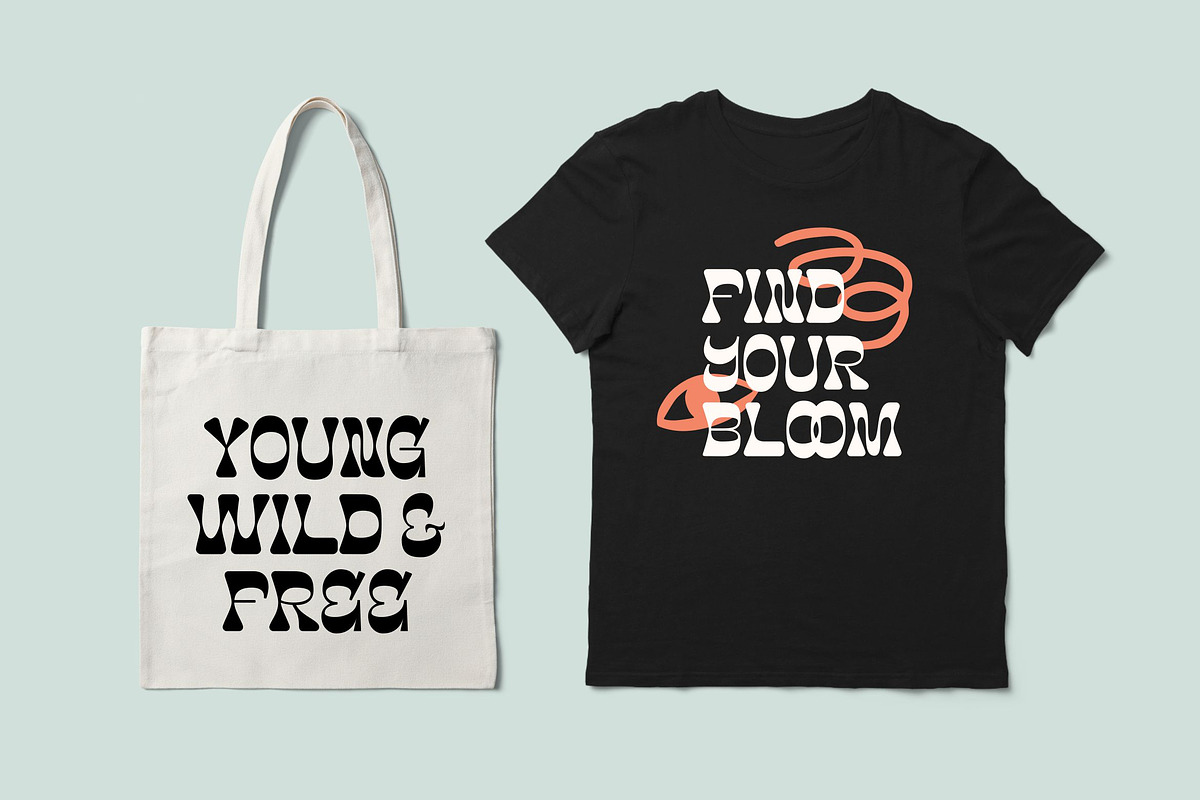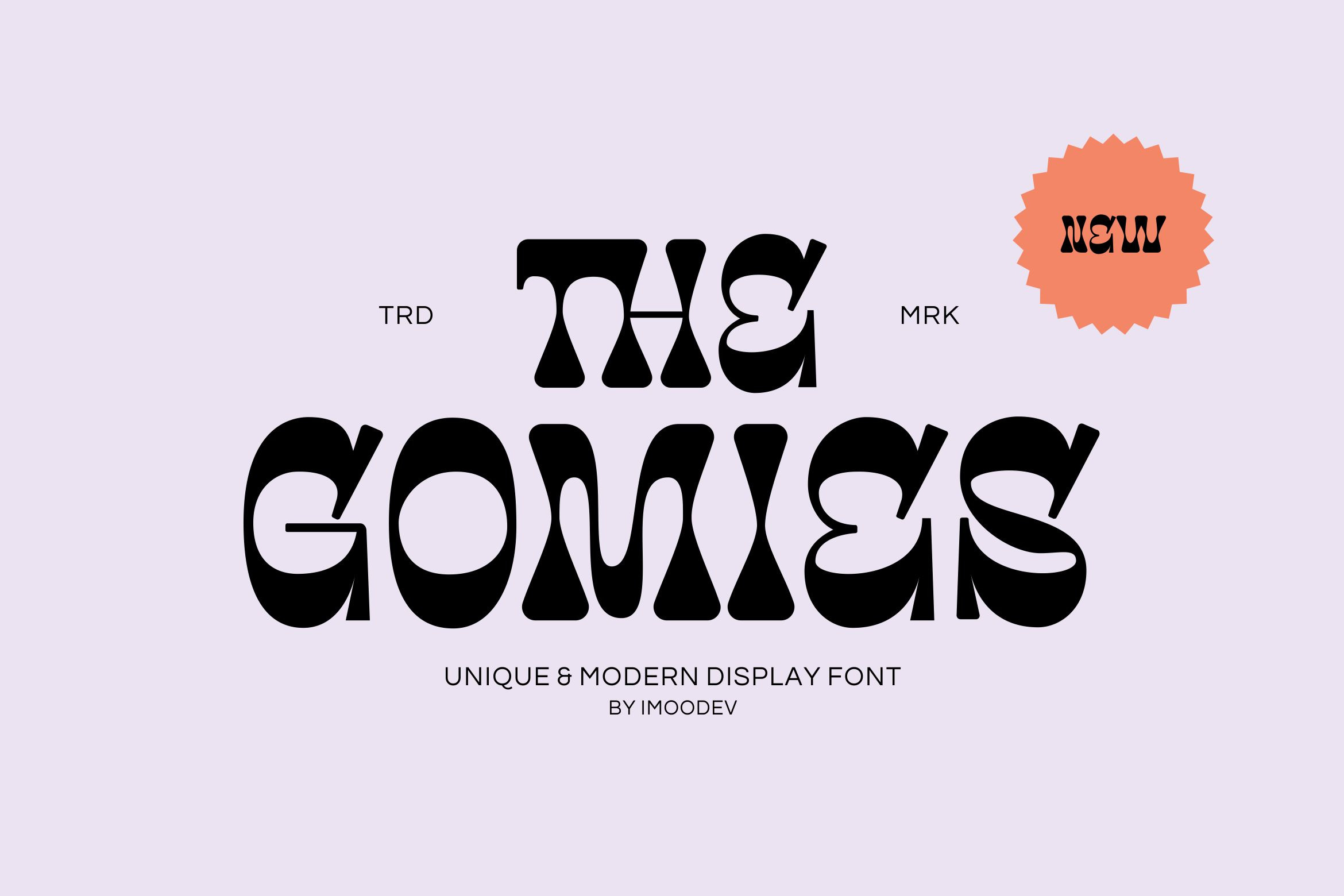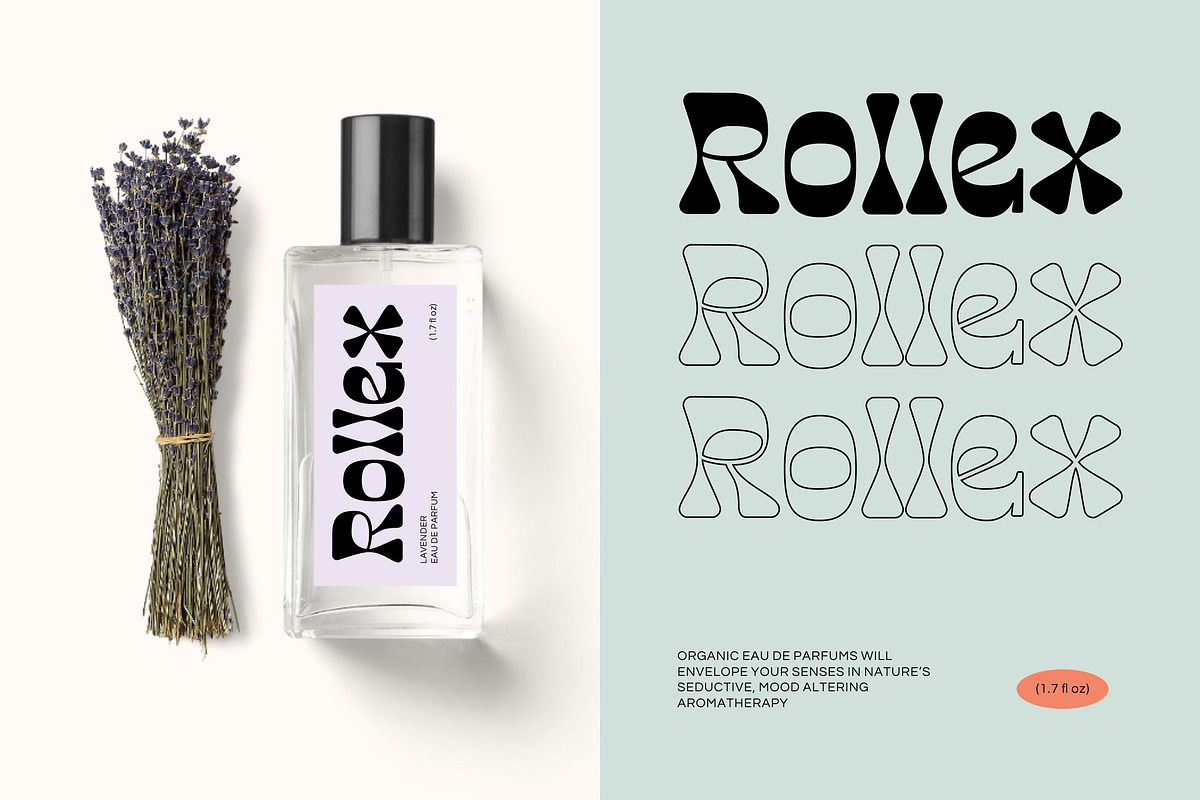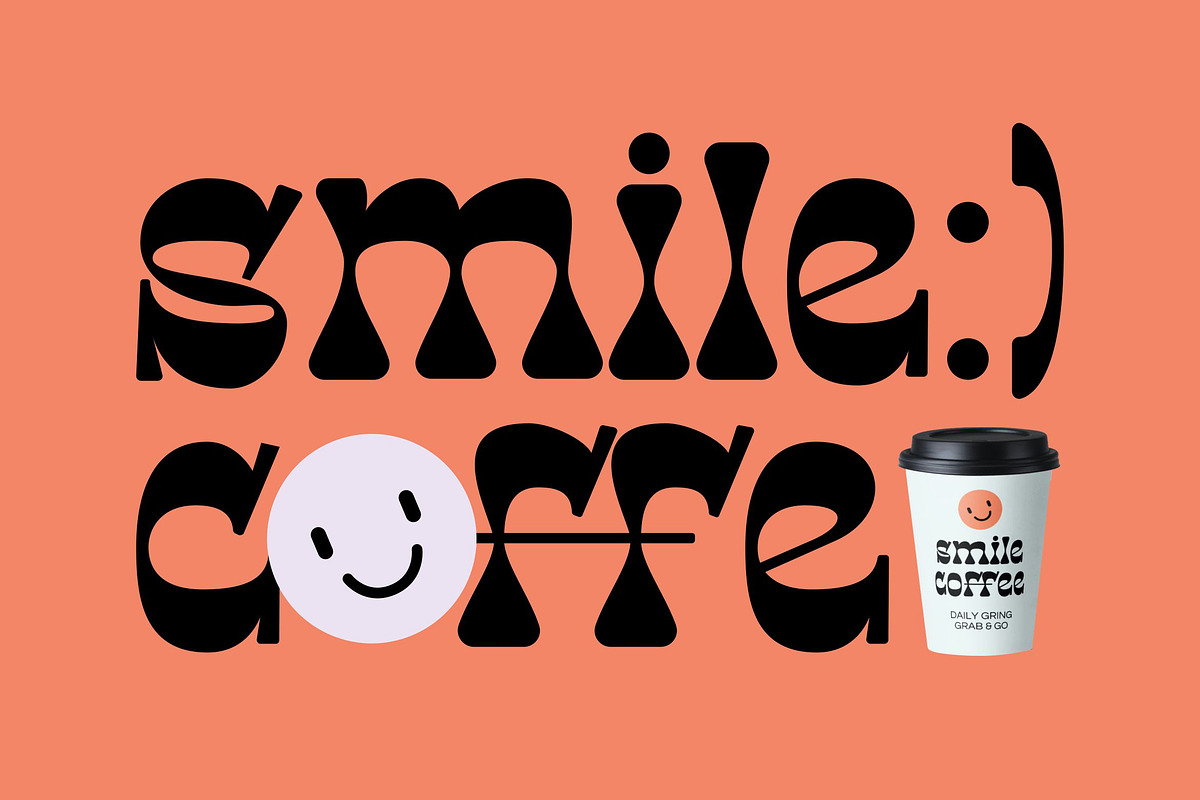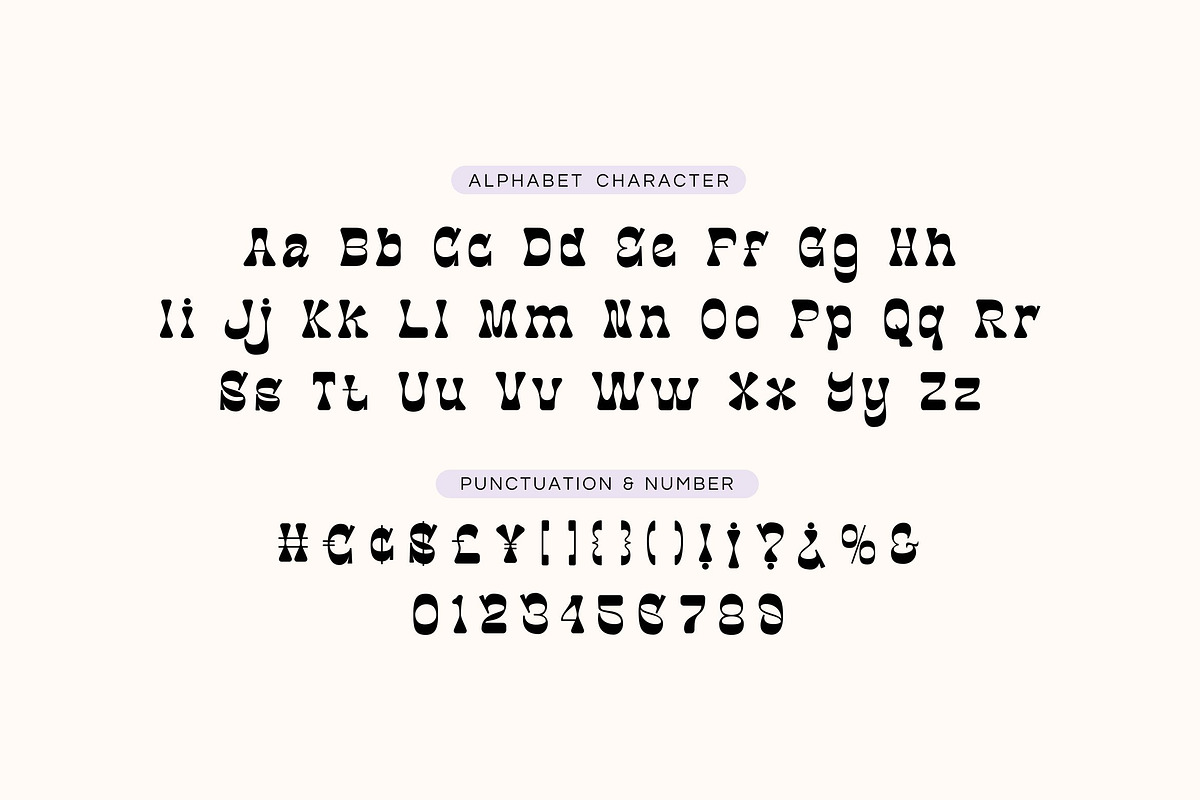
The Gomies - Retro Funky Typeface
Step into a world of playful curves and retro charm with The Gomies! This font is a stunning blend of 70s-inspired psychedelia and clean, modern design. Each letter is crafted with a bold, liquid like quality, featuring high contrast strokes and uniquely wavy forms that make your text dance.
With its fun and funky, The Gomies is ready to add a splash of groovy energy to your next design. Perfect for branding, packaging, posters, apparel, and social media graphics, whether you're designing crafting merchandise, or building a standout digital campaign, Gomies elevates your work with its trendy, character rich aesthetic.
- Uppercase and Lowecase Characters.
- PUA Encoded Characters.
- Numerals and Punctuations.
- Alternates and Ligatures.
- Multilingual Support.